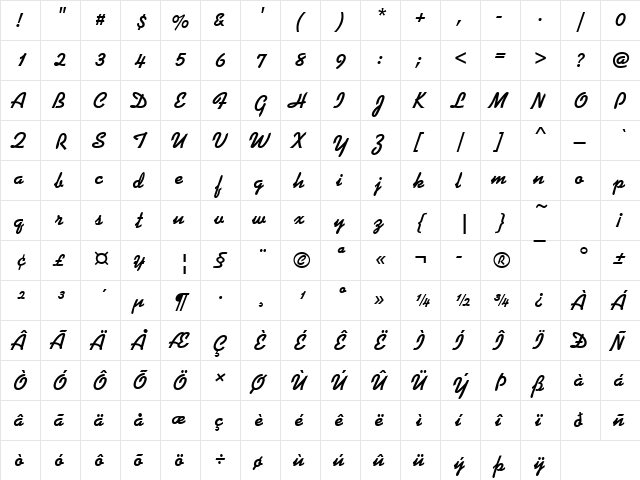
KoffeeDBol Regular
Design Context for KoffeeDBol Typeface
KoffeeDBol is a composed and adaptable typeface that performs quietly and consistently across a wide range of design contexts.